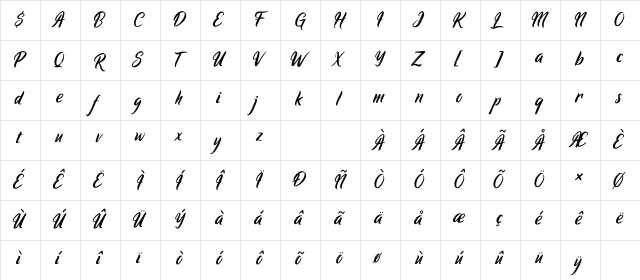
Ringtrack Demo Regular
| Foundry | Patria Ari Studio |
| Designer | Patria Ari Wijonarko |
Design Context for Ringtrack Demo Typeface
Ringtrack Demo is a composed and adaptable typeface that performs quietly and consistently across a wide range of design contexts.